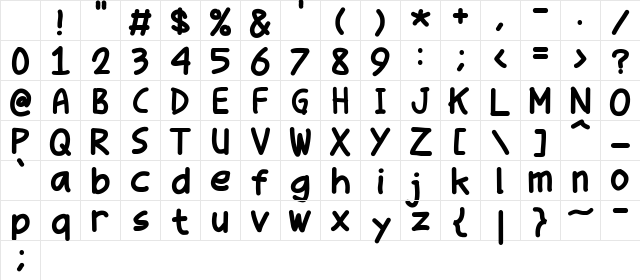
Parenda Pop Comic has an approachable, lighthearted character - its loose, expressive forms are well-suited to children's content, casual branding, and fun-first design.
Font Pairing: Pairs well with a rounded or humanist sans for body copy, maintaining the friendly tone without relying on Parenda Pop Comic to carry extended reading.
Pro Tip: Use Parenda Pop Comic at larger display sizes where its expressive character can land. Pair with a clean, simple sans for body copy to maintain readability.